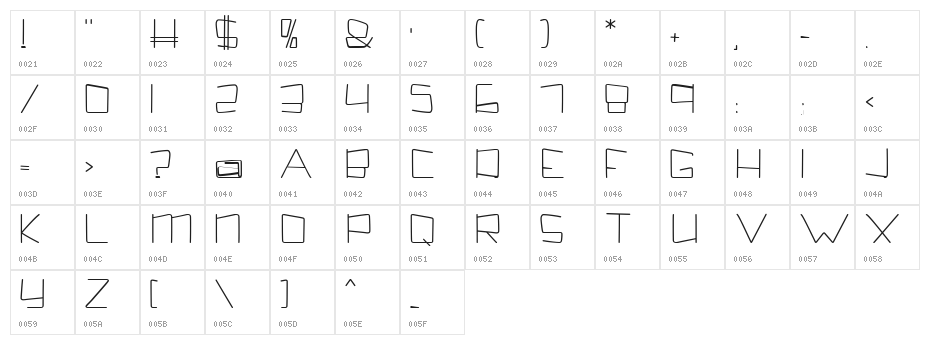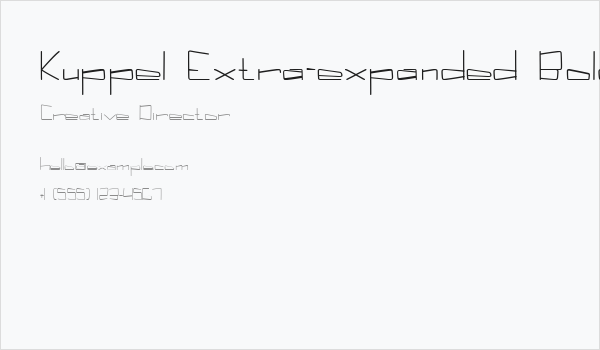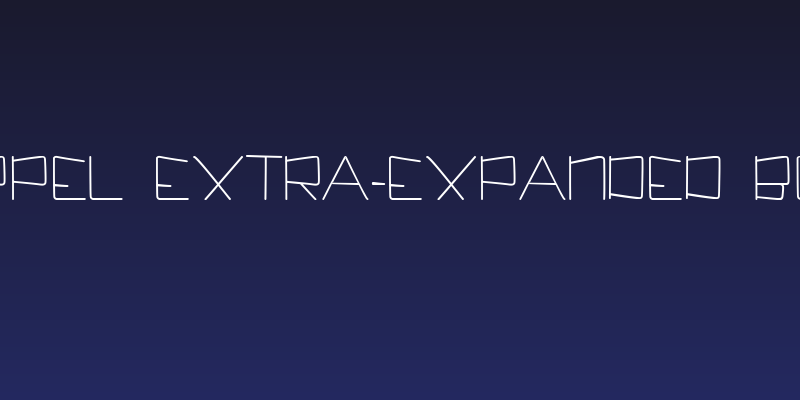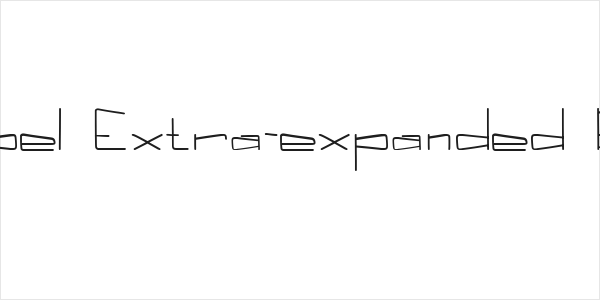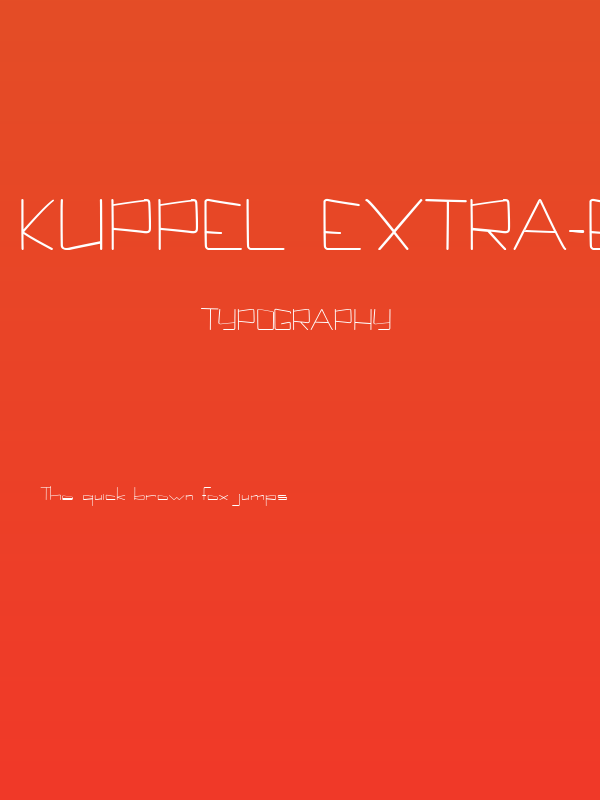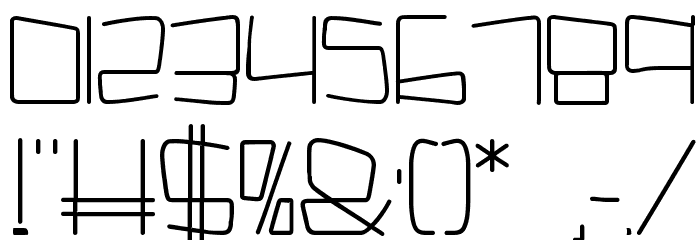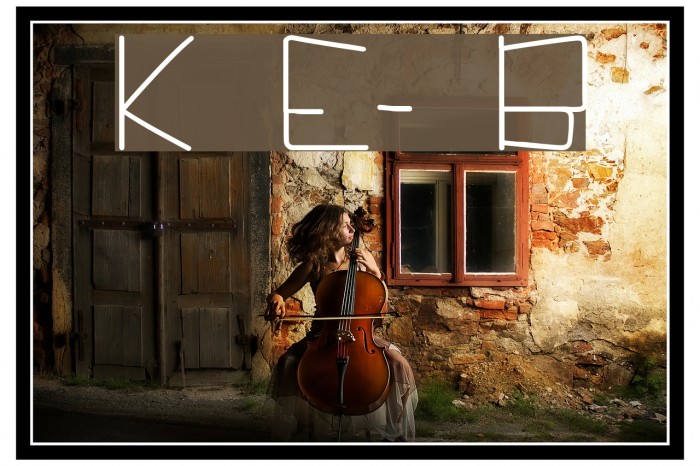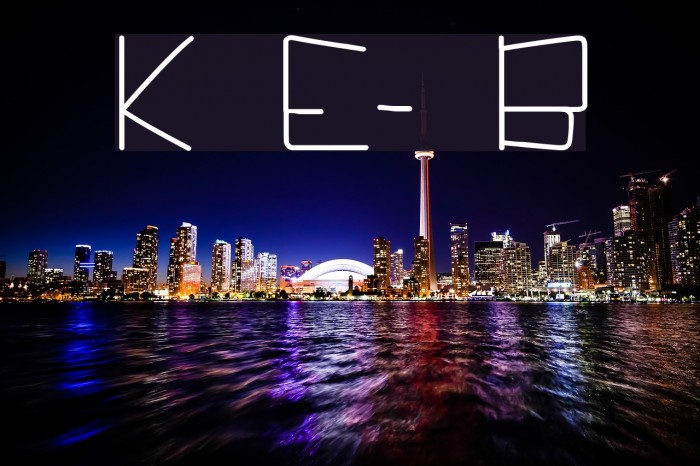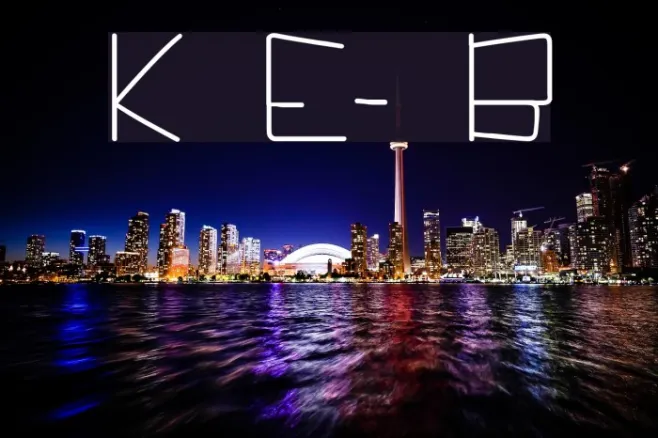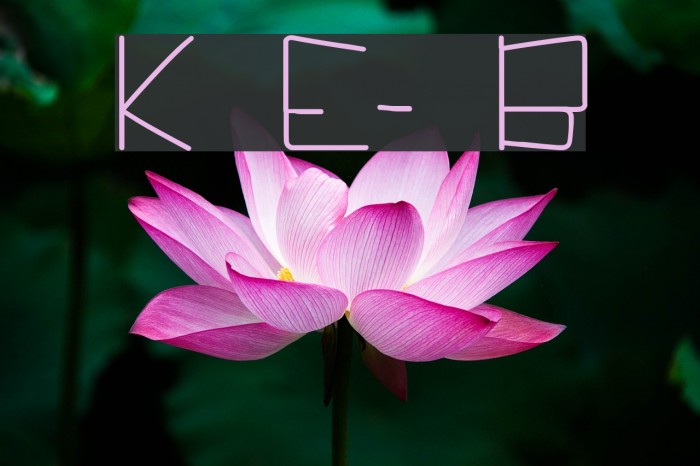
Kuppel Extra-expanded Bold Font
Kuppel Extra-expanded Bold Description
This font features a unique, geometric design with an extra-expanded width, giving it a distinct and modern appearance. The characters are constructed with clean, straight lines and sharp angles, creating a futuristic and technical feel. The uppercase and lowercase letters maintain a consistent style, with the uppercase being slightly taller and more pronounced. The numerals and special characters follow the same design principles, ensuring uniformity across all glyphs. The overall look is bold and eye-catching, making it suitable for projects that require a strong visual impact.